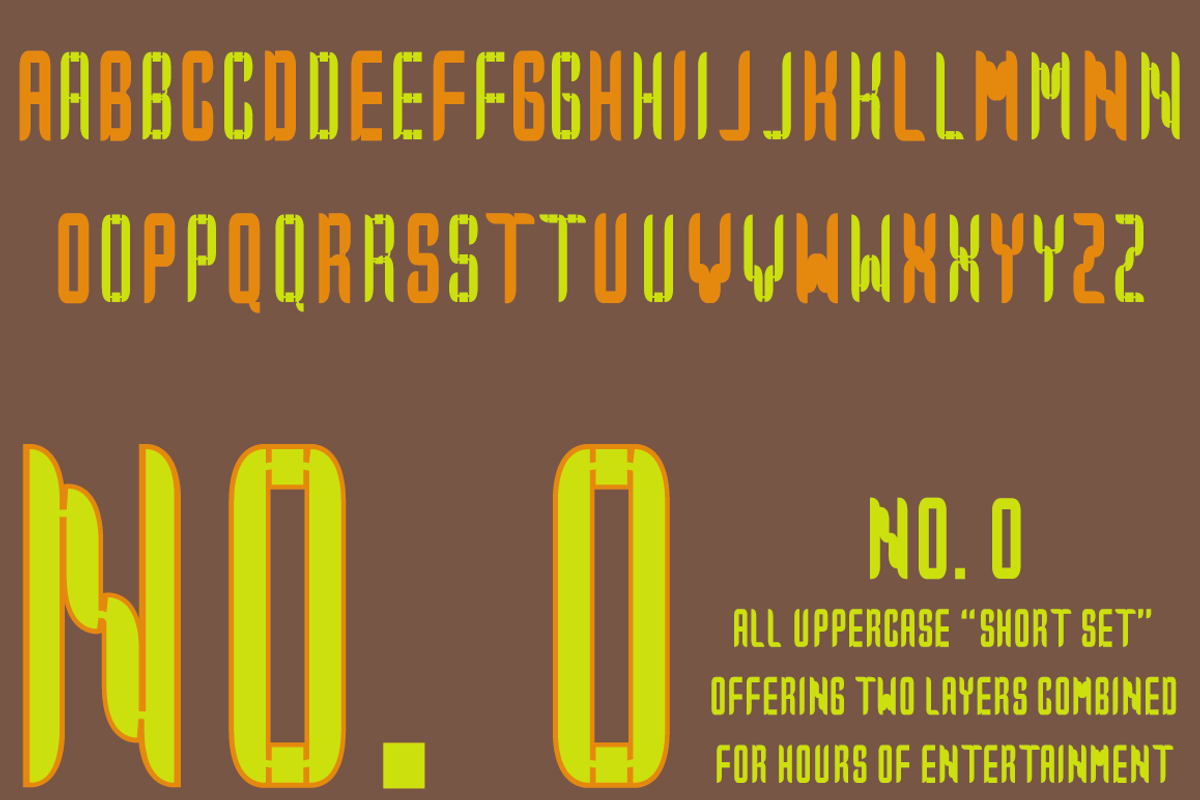
Stacked™ No. 0
Stacked™ No. 0 by Baseline Fonts is a font selected for branding, posters, packaging, typography.
- 0 is included with the family - we also thought we would offer it separately if you are wanting to see some of the features of the typeface
Stacked™ No. 0 by Baseline Fonts fits naturally into Branding, posters, packaging, typography.